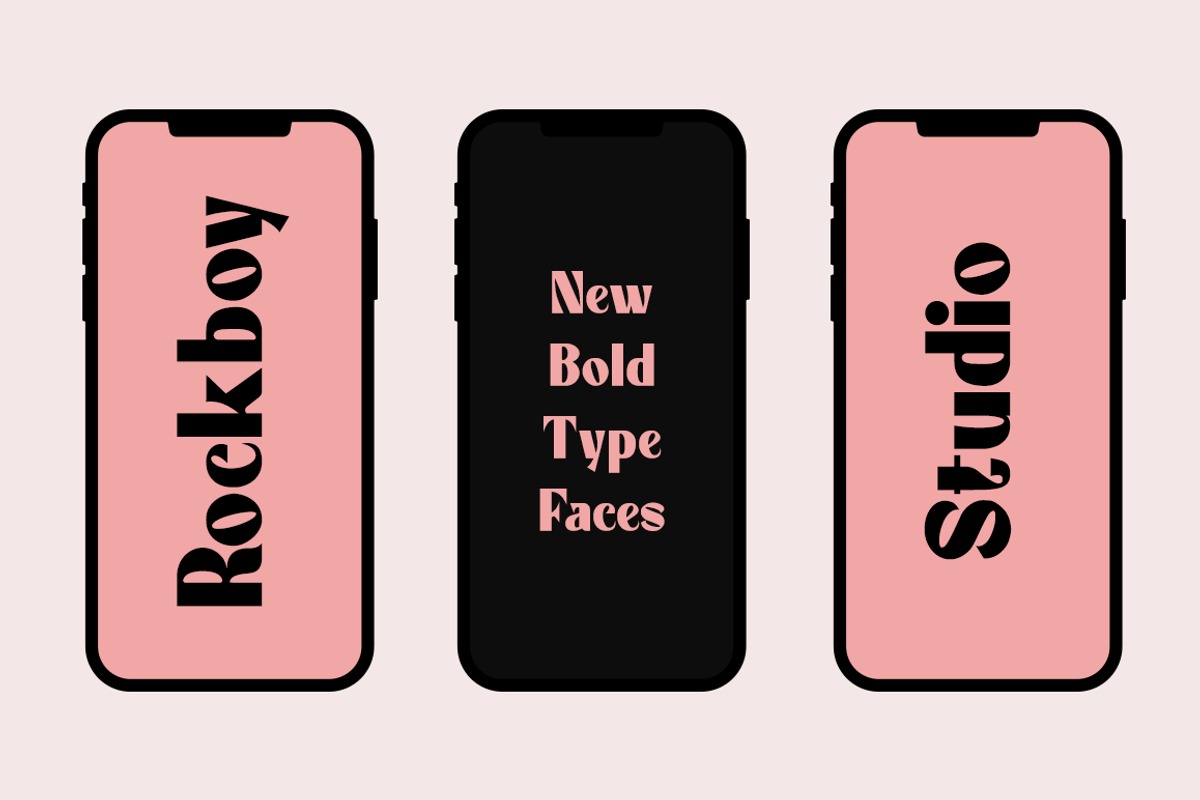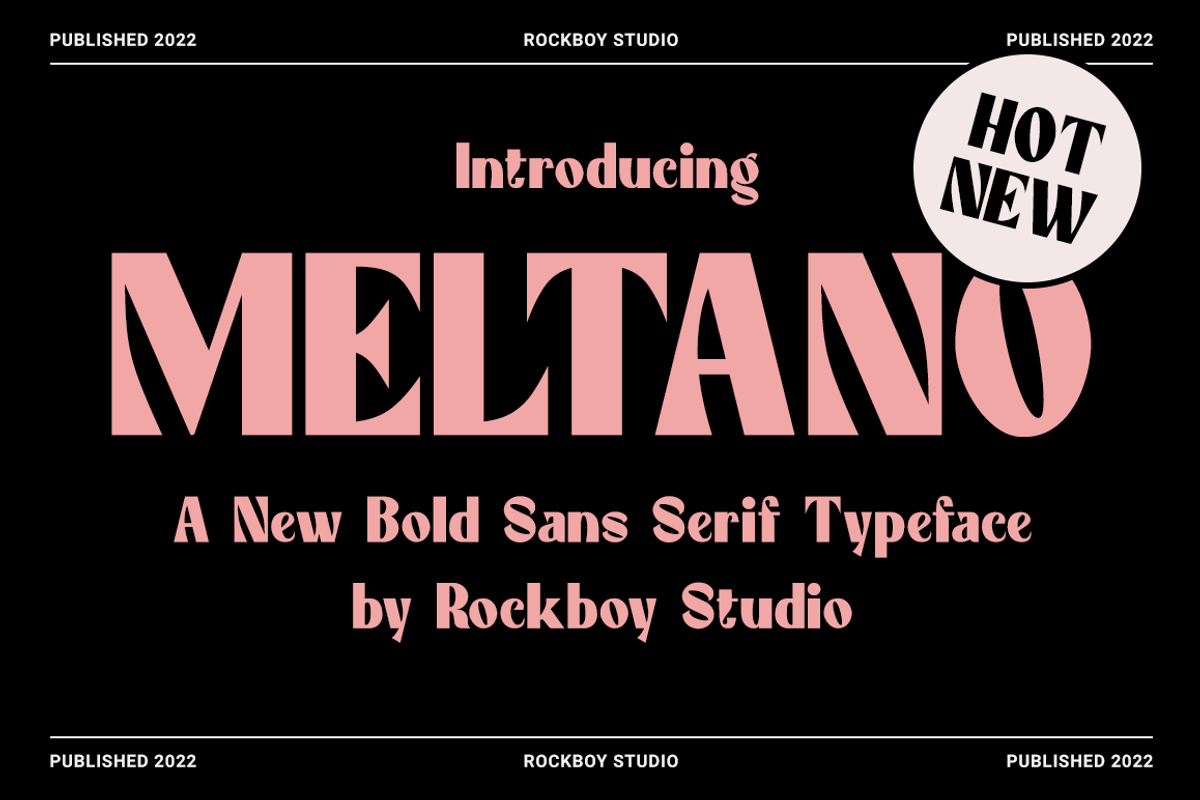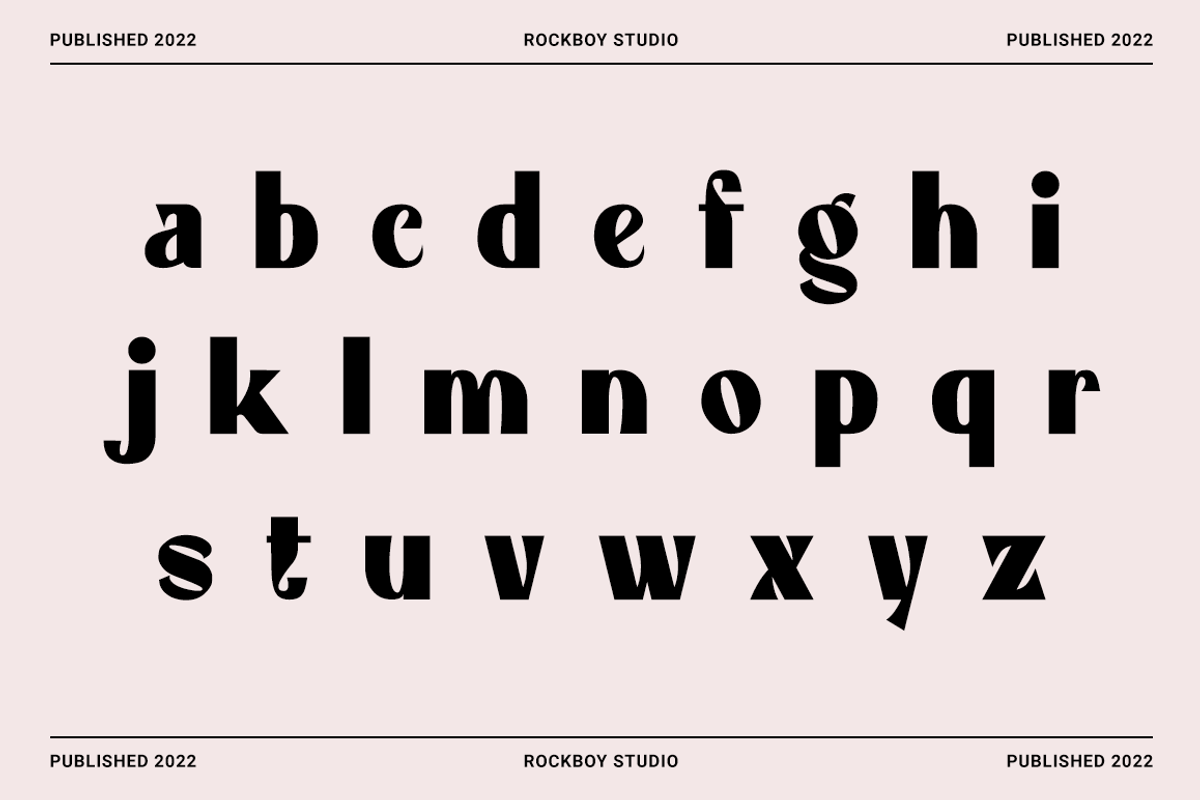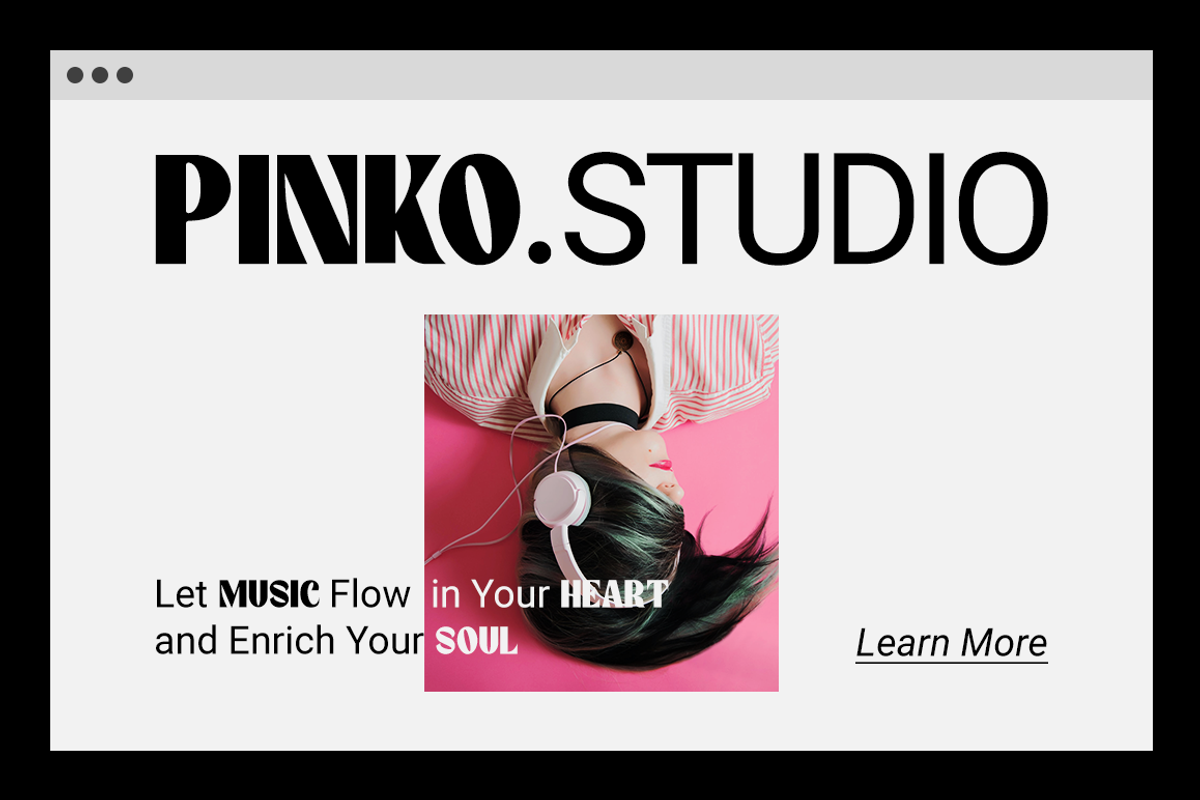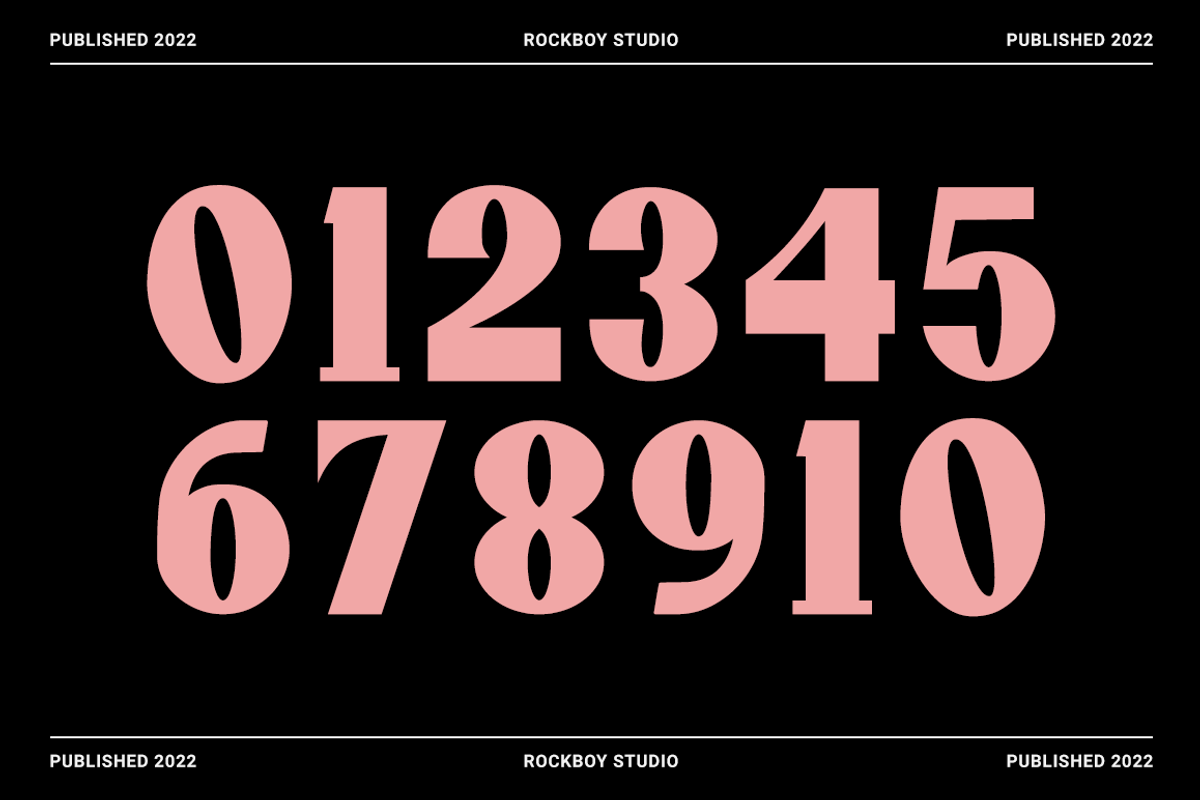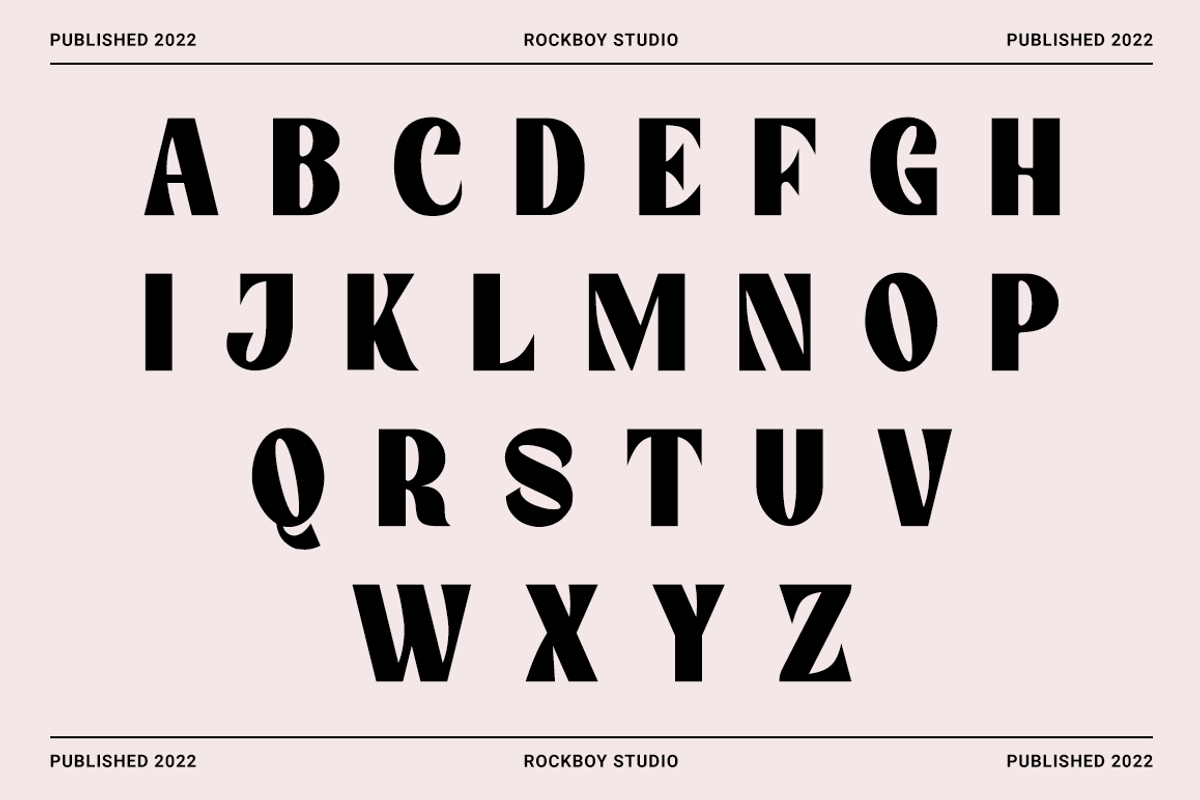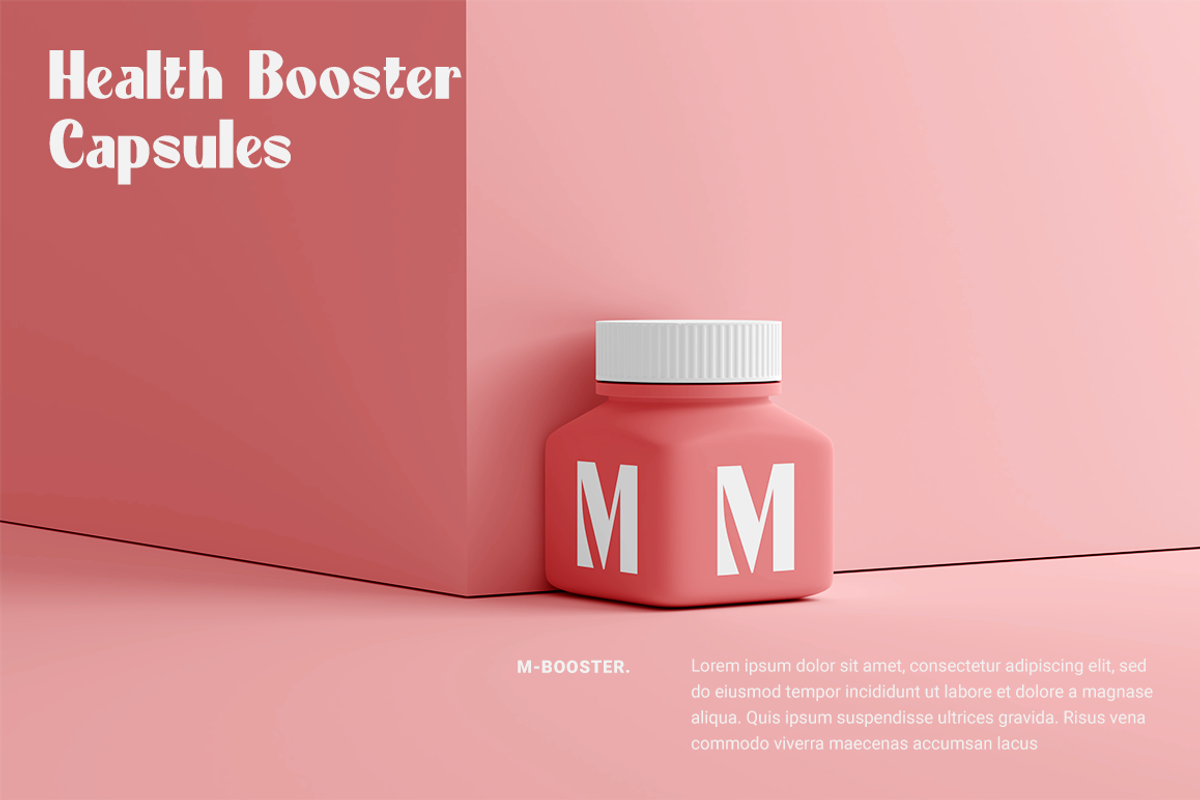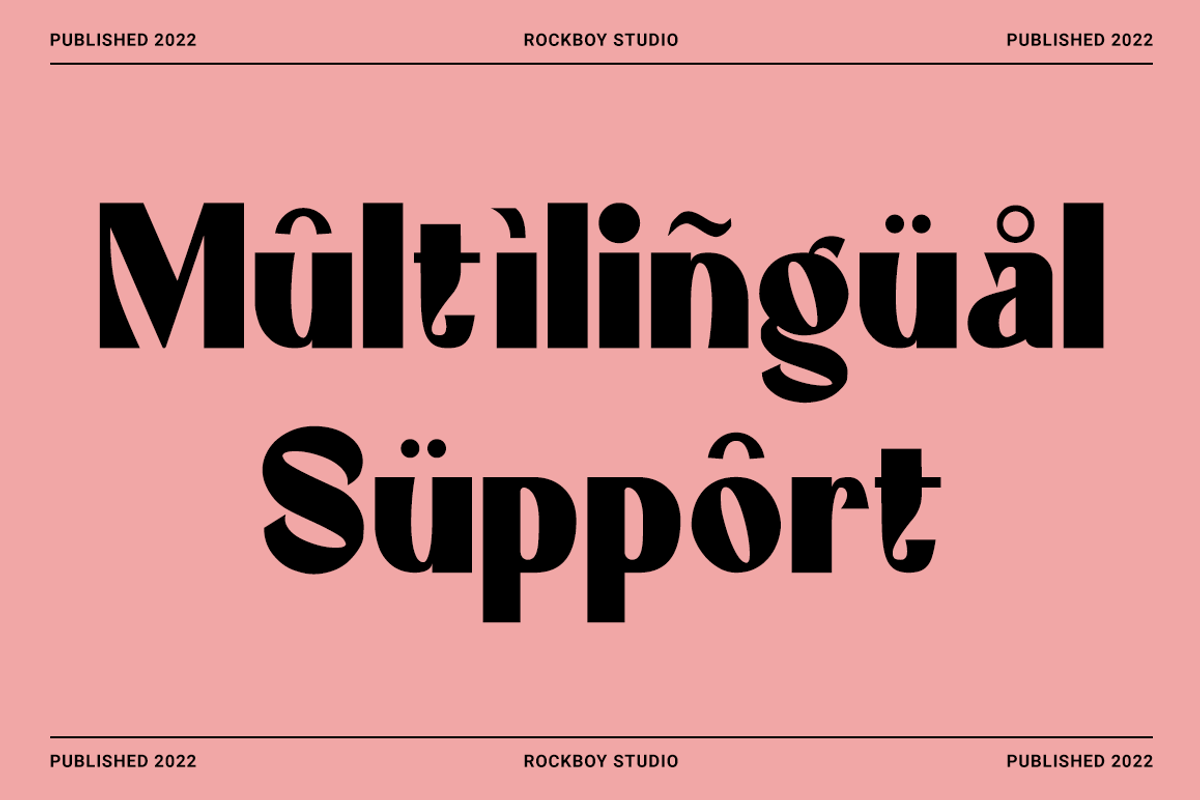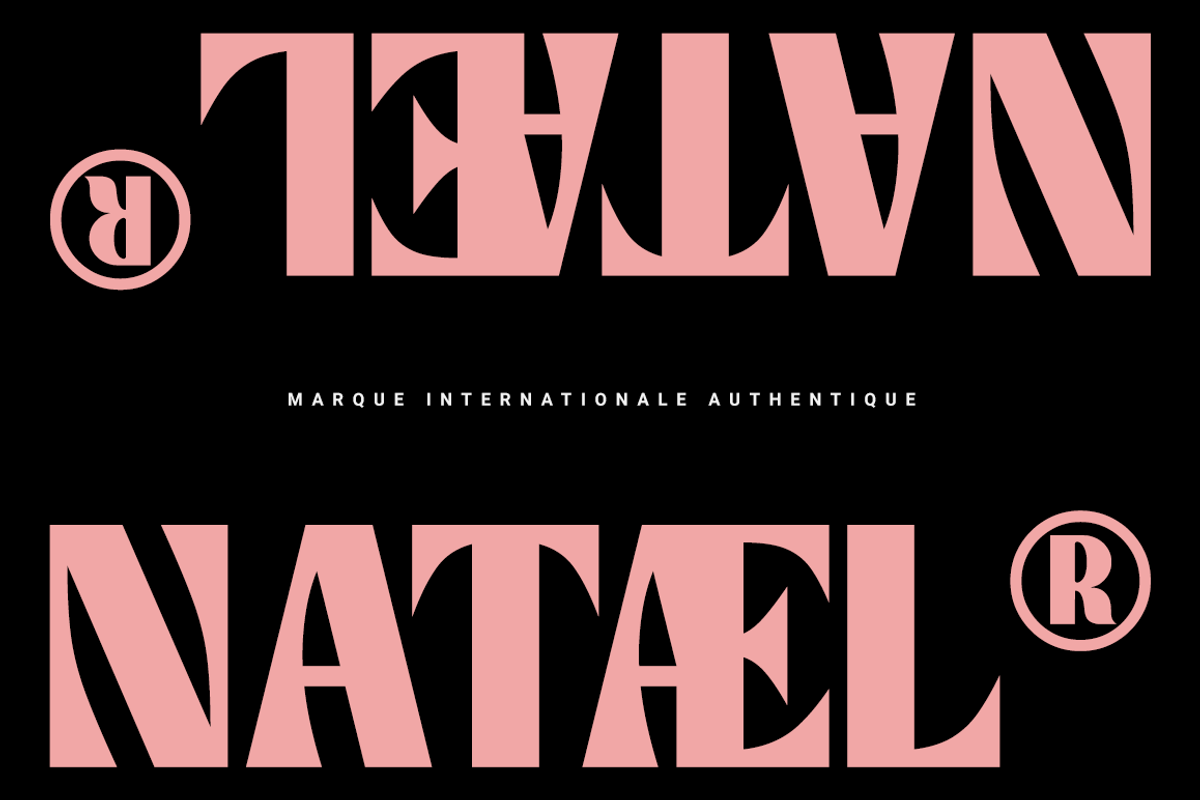
Meltano - Bold Sans Serif
Meltano is a cool, bold and thick lettered sans serif font. It will elevate a wide range of crafting ideas, from cards to branding, labels, and many more. Add it to any of your creative projects, and make them extraordinary!